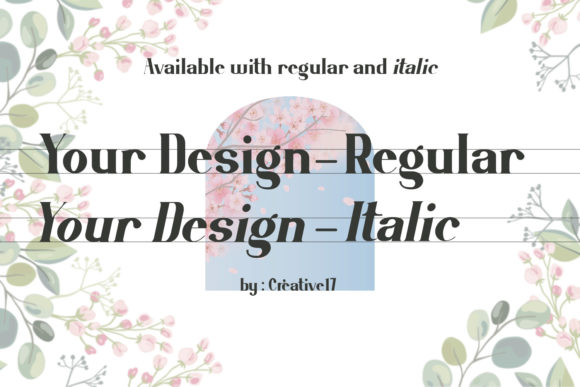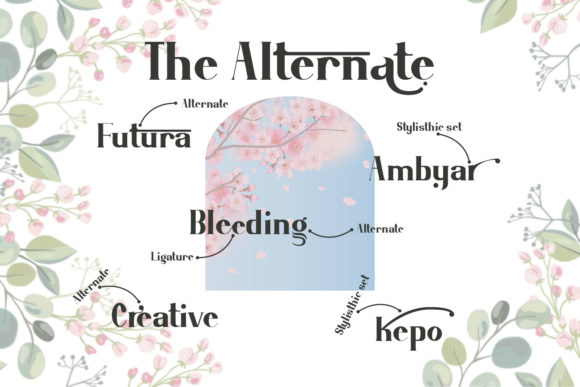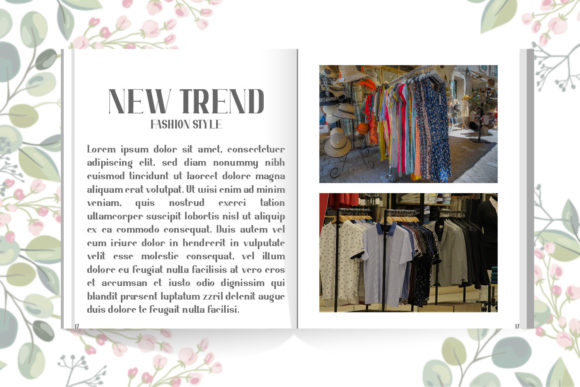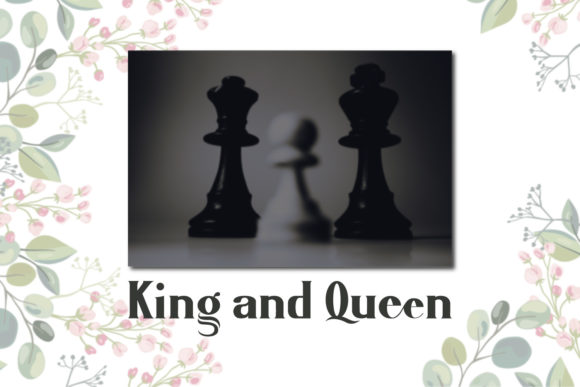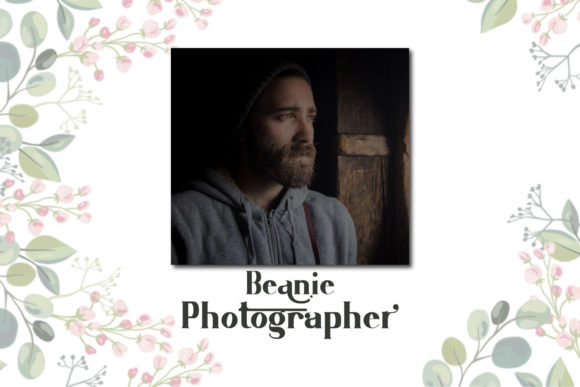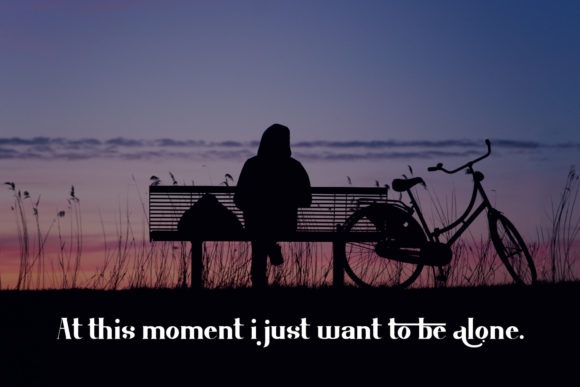
Introduction to Mirai Futura Font
Have you ever stared at a blank canvas, waiting for the perfect font to bring your creative project to life? That’s exactly what happened to me the other day, and I was about to give up when I stumbled upon the Mirai Futura Font. This stunning serif font has been a game-changer for designers like me, offering a luxurious and modern look that elevates any design project.
As a designer, you know how crucial it is to have a high-quality design resource like the Mirai Futura Font in your arsenal. With its bold and sophisticated feel, it’s perfect for large projects such as logo designs, newspaper titles, and posters. Whether you’re working on a business card or an invitation card, this font is sure to make your design stand out. And the best part? You can download it for free, making it an accessible design resource for designers of all levels.
Key Features of Mirai Futura Font
- High-quality font designed for creative projects, ideal for designers and artists looking for a unique design resource.
- Transparent background, allowing for seamless integration into designs with complex backgrounds or textures.
- Perfect for use in graphic design, digital art, and other creative projects where a futuristic and modern aesthetic is desired.
- High-resolution font, ideal for use in large-scale designs, such as billboards, posters, and other promotional materials.
- Unique blend of futuristic and retro elements, giving it a distinctive and eye-catching appearance.
Honest Review: Mirai Futura Font
I recently had the chance to work with the Mirai Futura Font, and I must say it’s been a game-changer for my creative projects. The high-quality design of this font is truly impressive, making it a valuable addition to my design resource library.
One of the standout features of the Mirai Futura Font is its versatility. It can be used for a wide range of projects, from graphic design to digital art, and it always looks great. I’ve also appreciated the ability to download it for free, which has been a huge time-saver for me.
Here are some of the things that work well with the Mirai Futura Font:
- ✨ High-quality design that looks great on a variety of backgrounds
- ✨ Versatile and can be used for a wide range of projects
- ⚠️ Limited customization options, which may not be ideal for some designers
- ⚠️ Not suitable for projects that require a transparent background, as it may not display correctly
Overall, I’m really impressed with the Mirai Futura Font and would highly recommend it to anyone looking for a high-quality design resource. With its versatility and high-quality design, it’s a great addition to any designer’s toolkit.
To use the Mirai Futura Font in PowerPoint and Word, download the font and install it on your computer. You can then select the font from the font library and apply it to your text. The transparent background of the Mirai Futura Font makes it easy to use in presentations and documents.
Tips for Getting the Most Out of the Mirai Futura Font
Experiment with different font sizes and styles to achieve the desired look. Use the Mirai Futura Font in combination with other design elements to create a unique and visually appealing design. Consider using the font with a transparent background to add depth to your design.
The Mirai Futura Font is ideal for creative projects such as logos, business cards, and brochures. It can also be used in presentations and documents to add a touch of modernity. The high-quality design of the Mirai Futura Font makes it suitable for professional design work.
Q: Does the Mirai Futura Font have a transparent background?
Yes, the Mirai Futura Font has a transparent background, making it an ideal choice for designers who require a high-quality font with a seamless integration into their creative project. This feature allows for greater flexibility when designing with the font, ensuring a polished and professional finish.